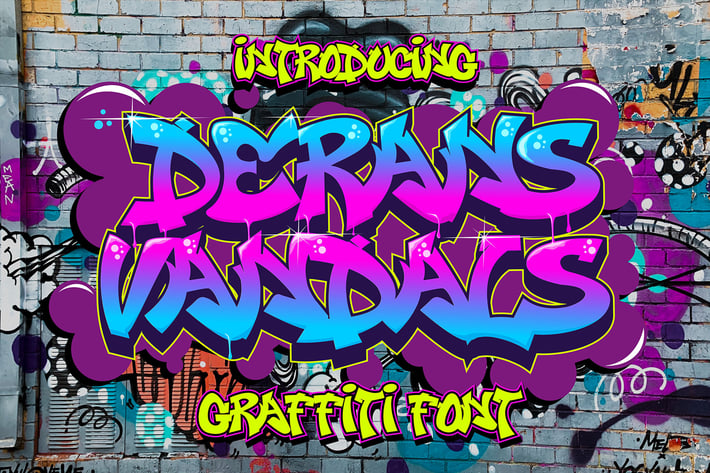
Derans Vandals - Awesome Graffiti Font
Derans Vandals is a spectacular decorative font with a graffiti style. It will elevate a wide range of design projects to the highest level, be it branding, headings, wedding designs, invitations, signature, logotype, wall art illustration, labels, and much more!